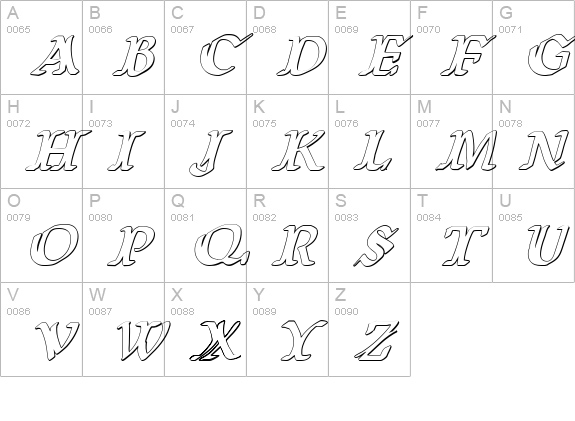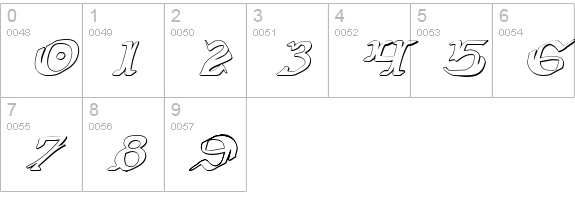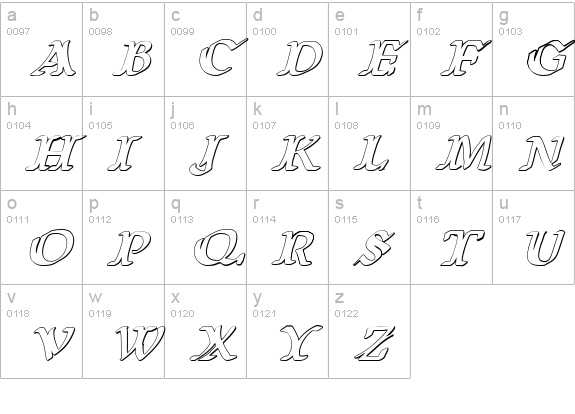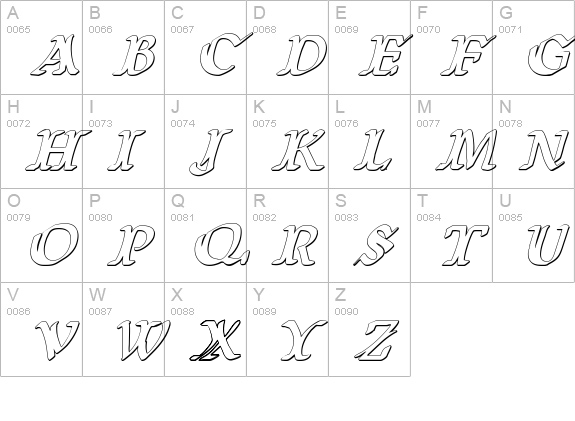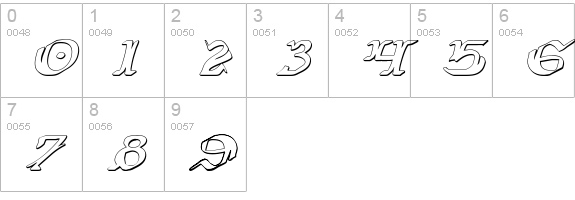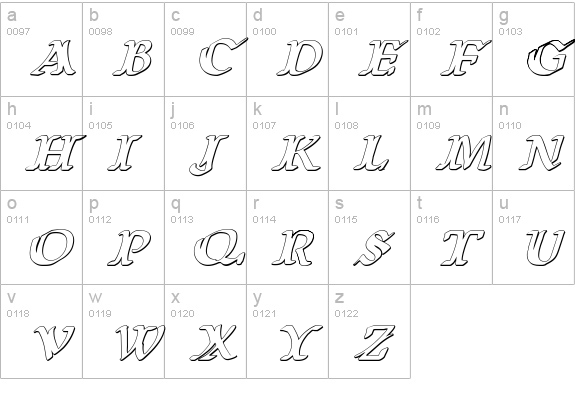
Wars of Asgard 3D Italic is a distinctive, italic variant in the Wars typeface family \xE2\x80\x94 well suited to design and typography projects.
Immerse yourself in the epic battles of the mythical realm of Asgard with Wars of Asgard 3D Italic font. This striking and bold typeface exudes power and strength, perfect for conveying a sense of grandeur and mystique in your designs. The three-dimensional effect adds an extra layer of depth and dynamism, making your text truly stand out. Best of all, Wars of Asgard 3D Italic font is available for free download at FontsMarket.com. Unleash your creativity and bring a touch of ancient Norse mythology to your projects with this unique and captivating font. Let the battles of Asgard inspire your designs and captivate your audience with this stunning typeface.